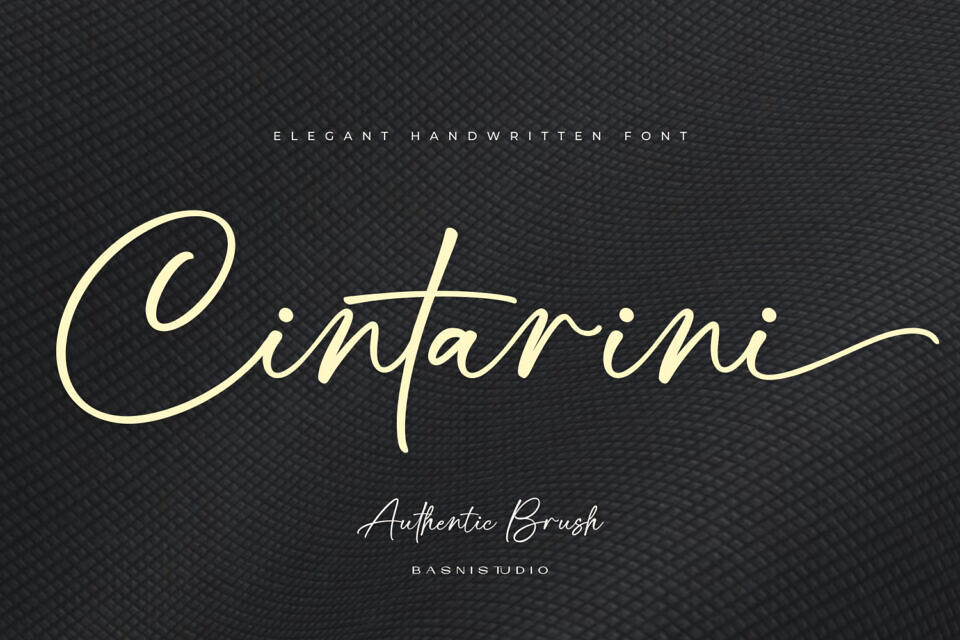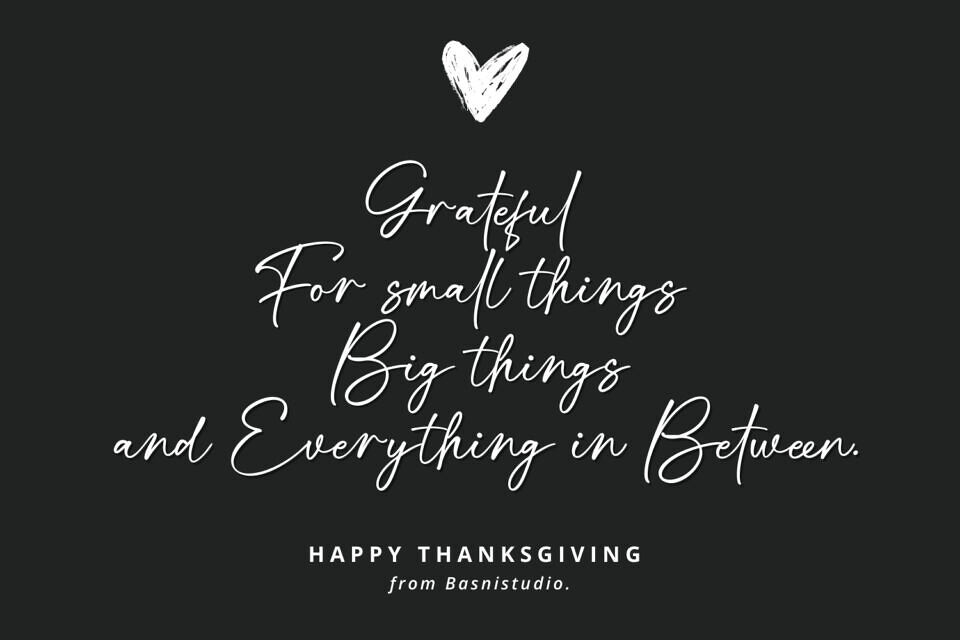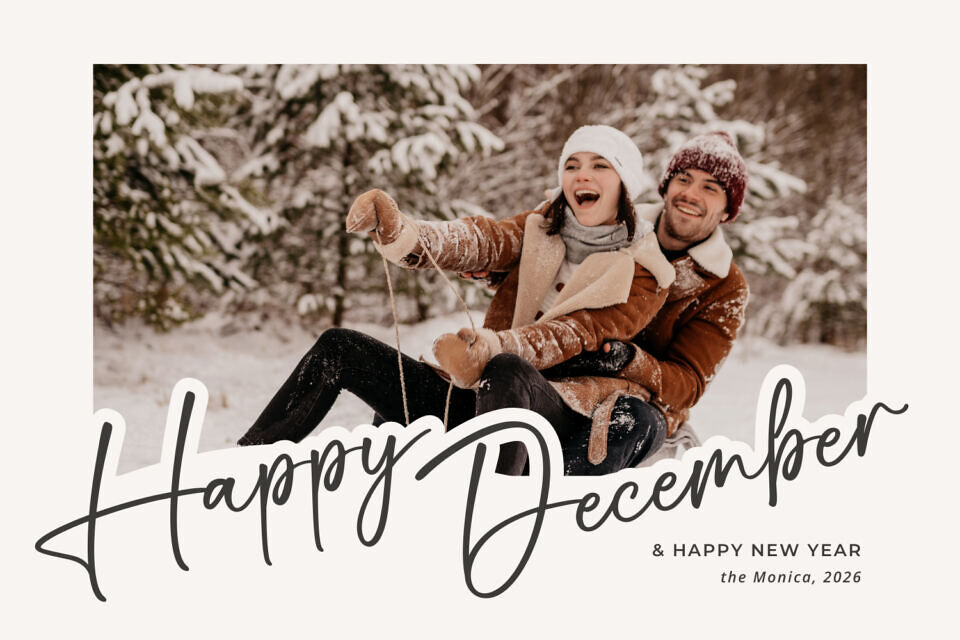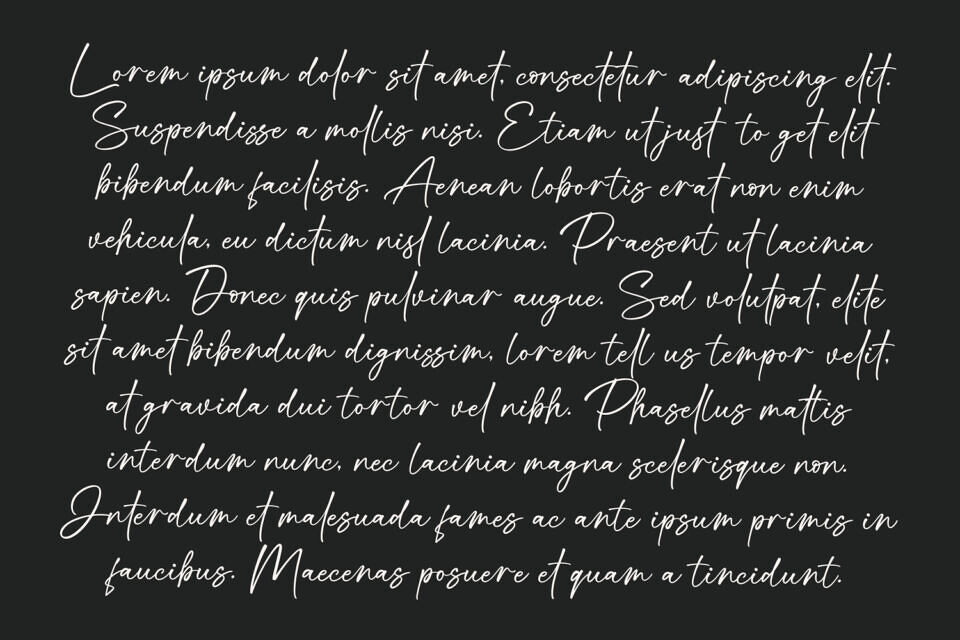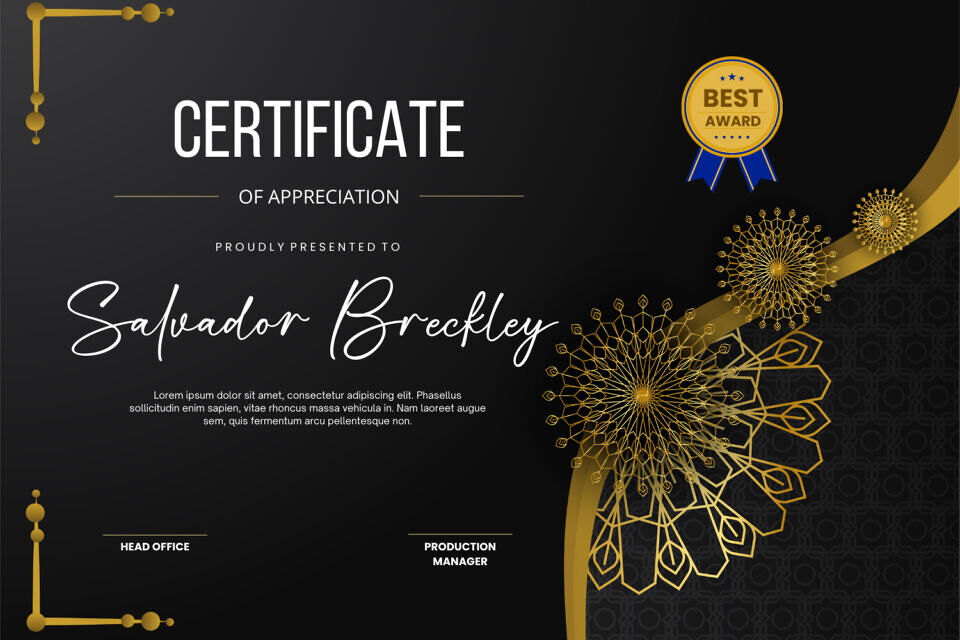
Introducing Cintarini, a Flawless handwritten font crafted with authentic Brush for a Natural & Casual touch for everything from branding and social media to invitations and packaging.
Cintarini, a Handwriting Font Created with authentic Brushstrokes for a natural and casual look, gives you the creative edge you need.